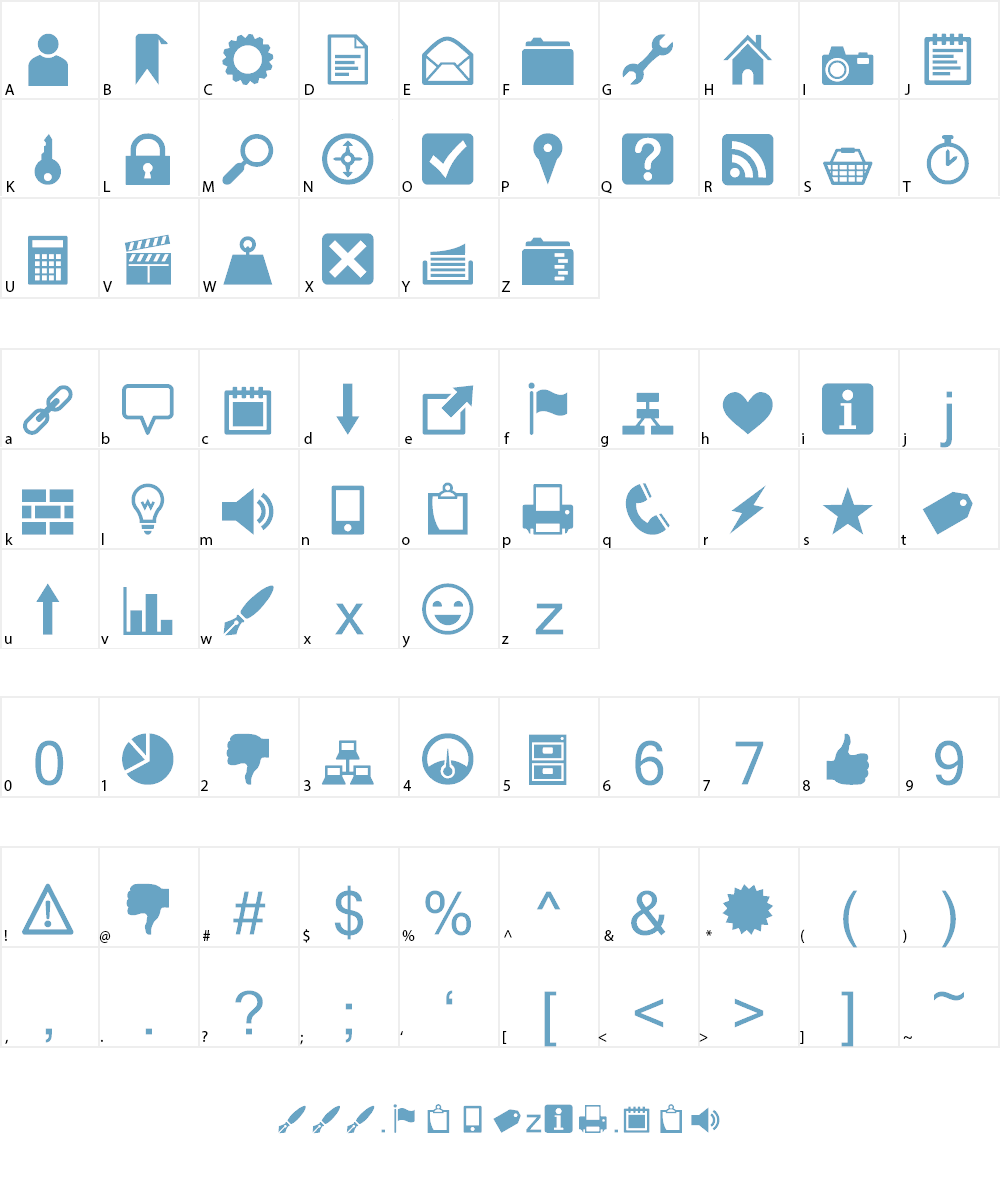
'Heydings Icons' is designed to be embedded in websites and web applications as a lower-bandwidth, scalable alternative to images. The comprehensive set of icons can be used to illustrate buttons, navigation items and hyperlinks. However, you can get a lot more creative.